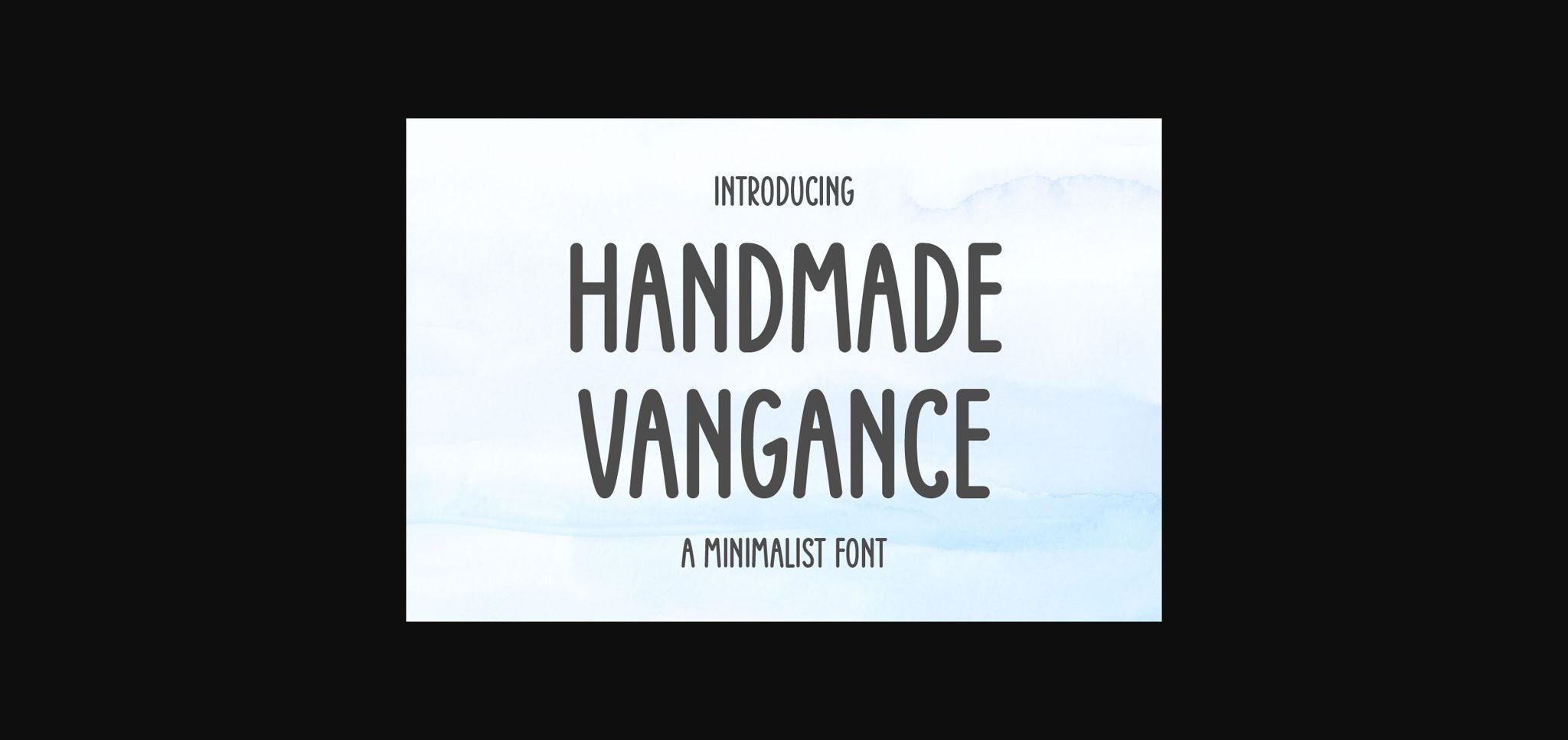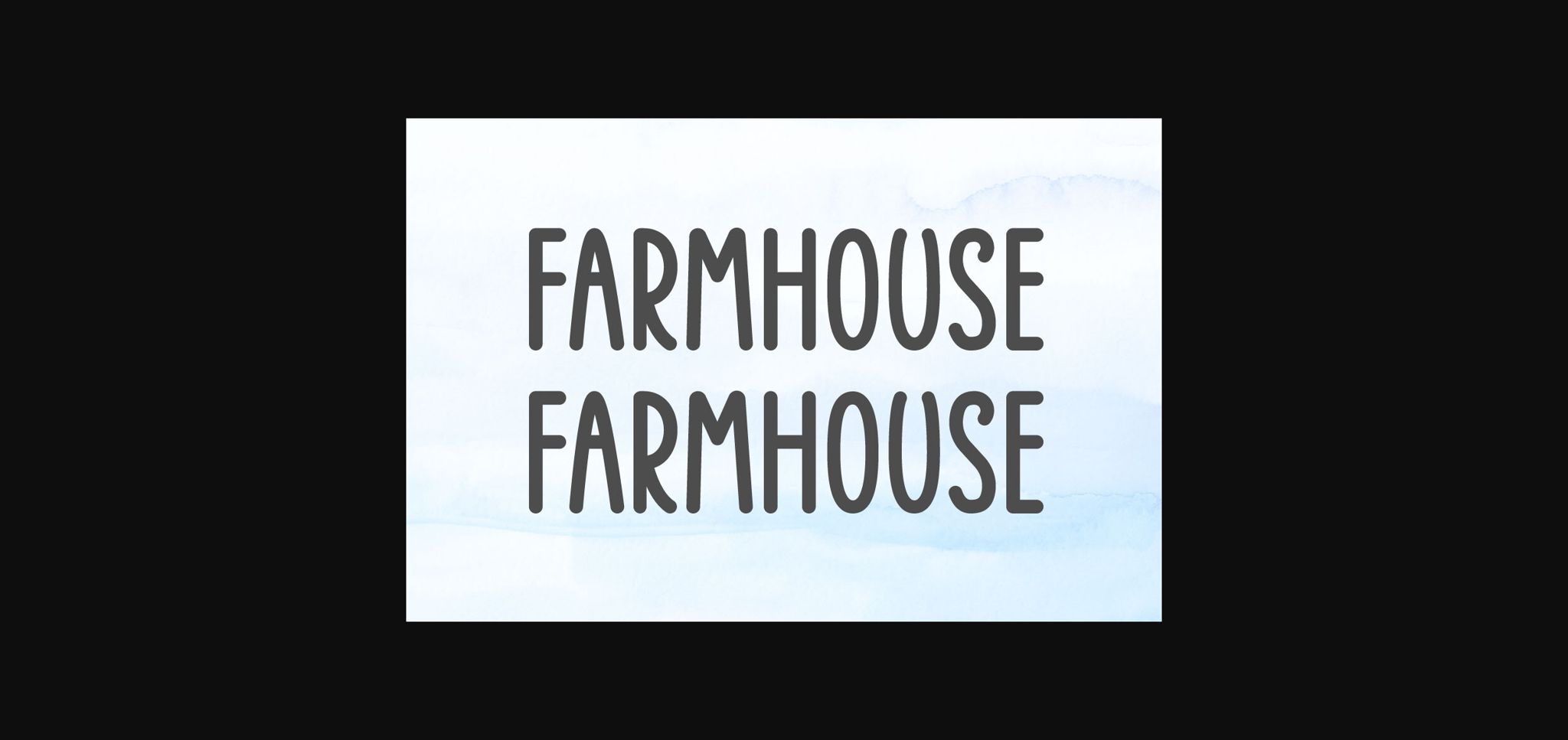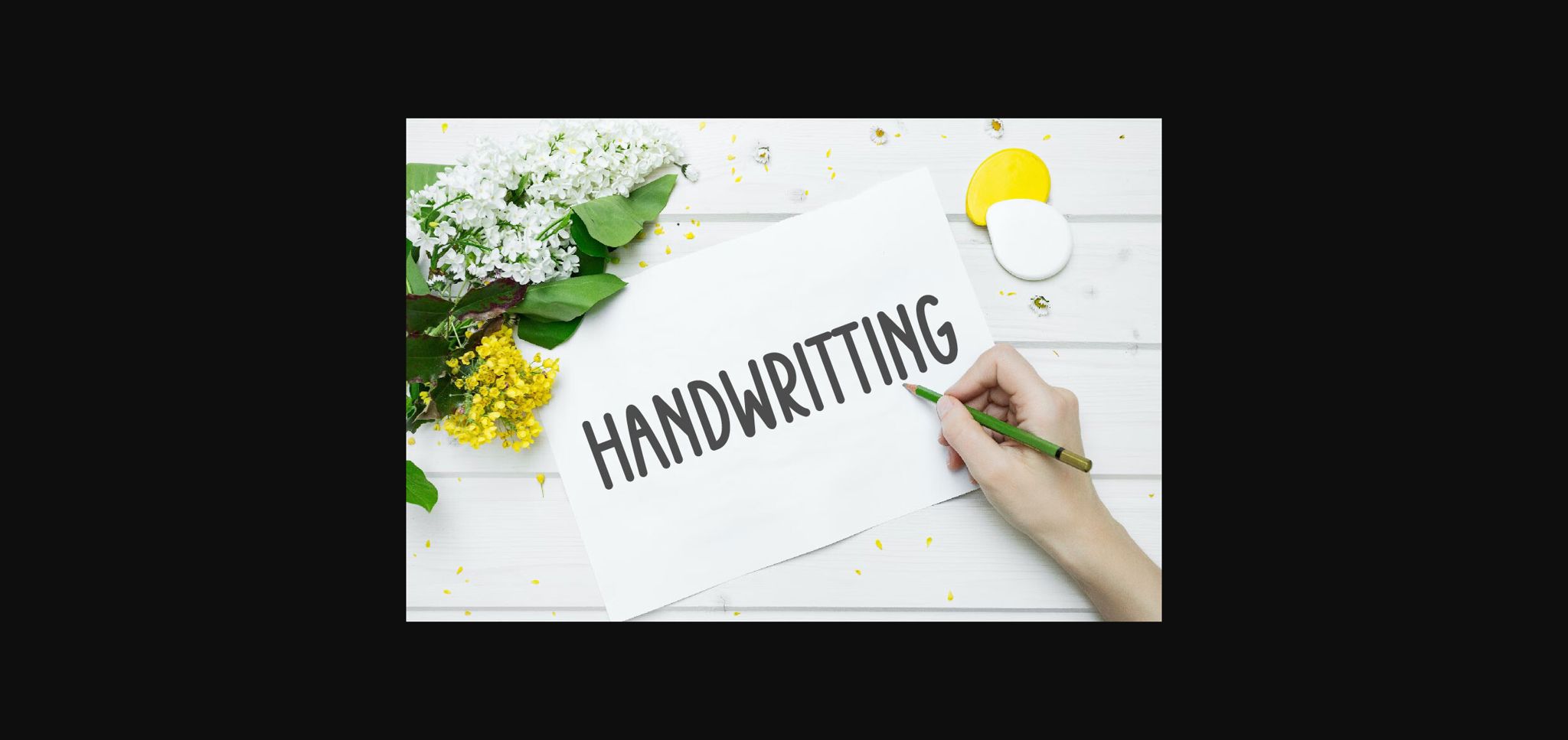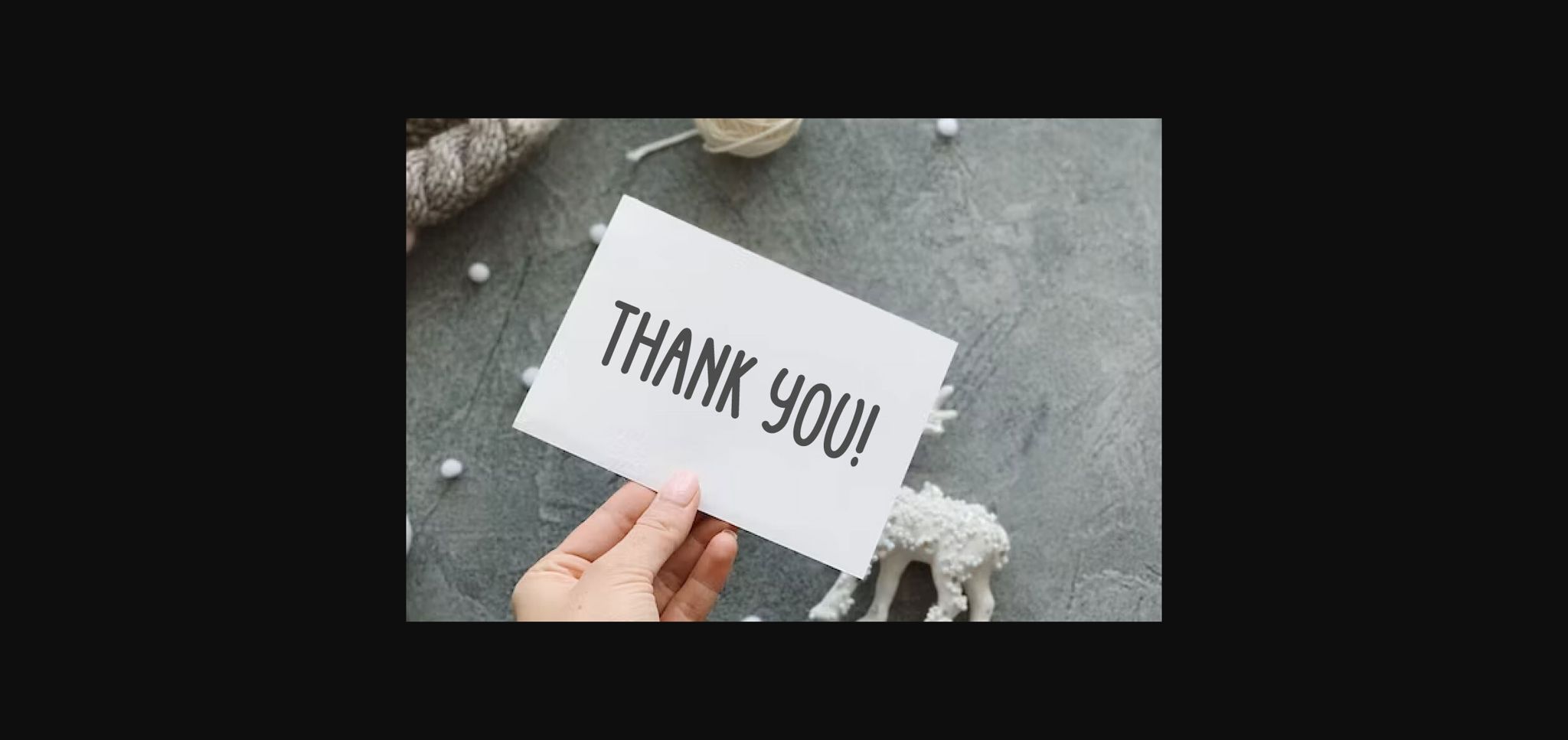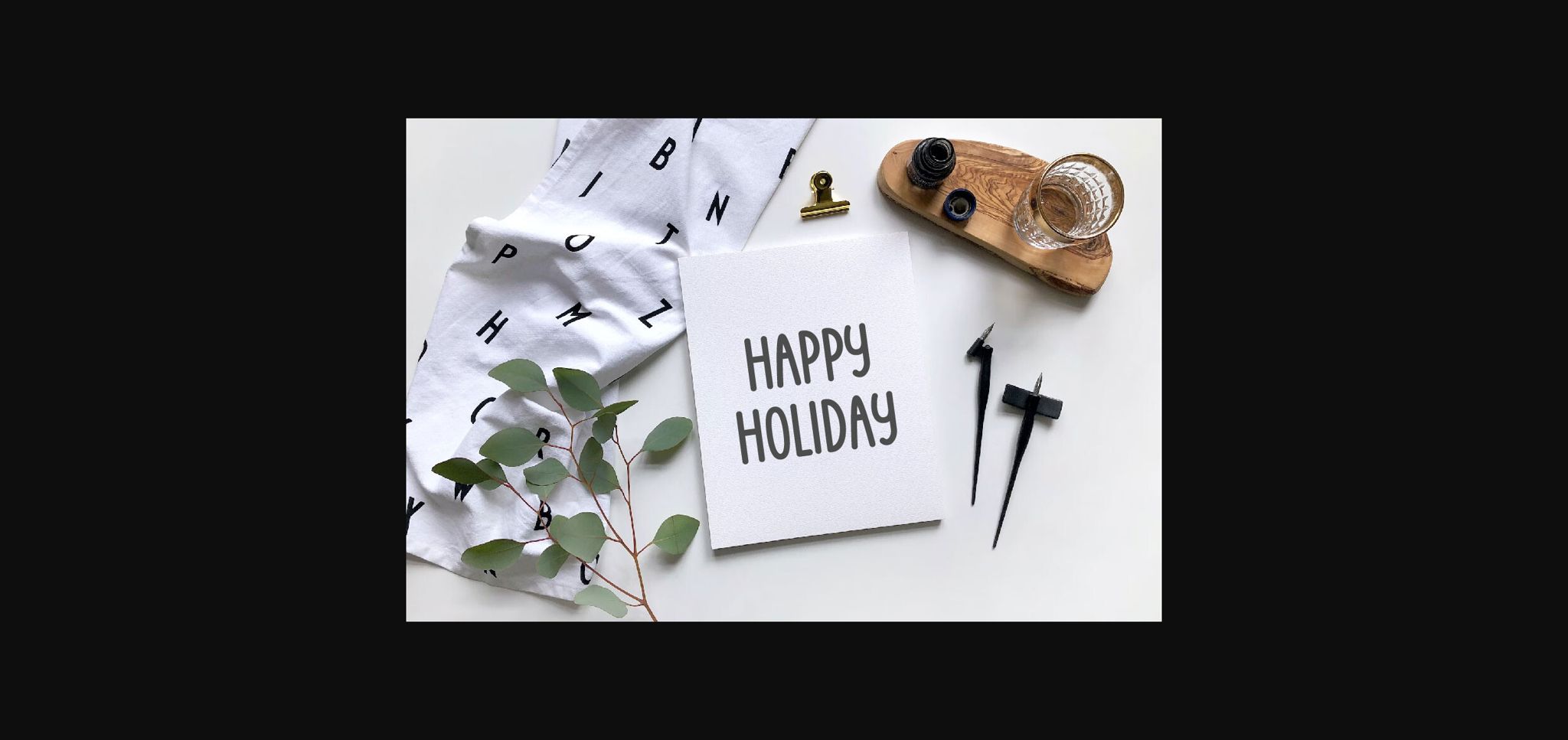
Handmade Vangance Font
About Handmade Vangance Font
Handmade Vangance is a minimalist sans serif font. This gentle font will look gorgeous on a variety of design ideas. this font is perfect for greeting cards, weddings, gift labels, mugs, t-shirts, quotes, labels, etc. It will add a joyful and romantic touch to each of your projects!